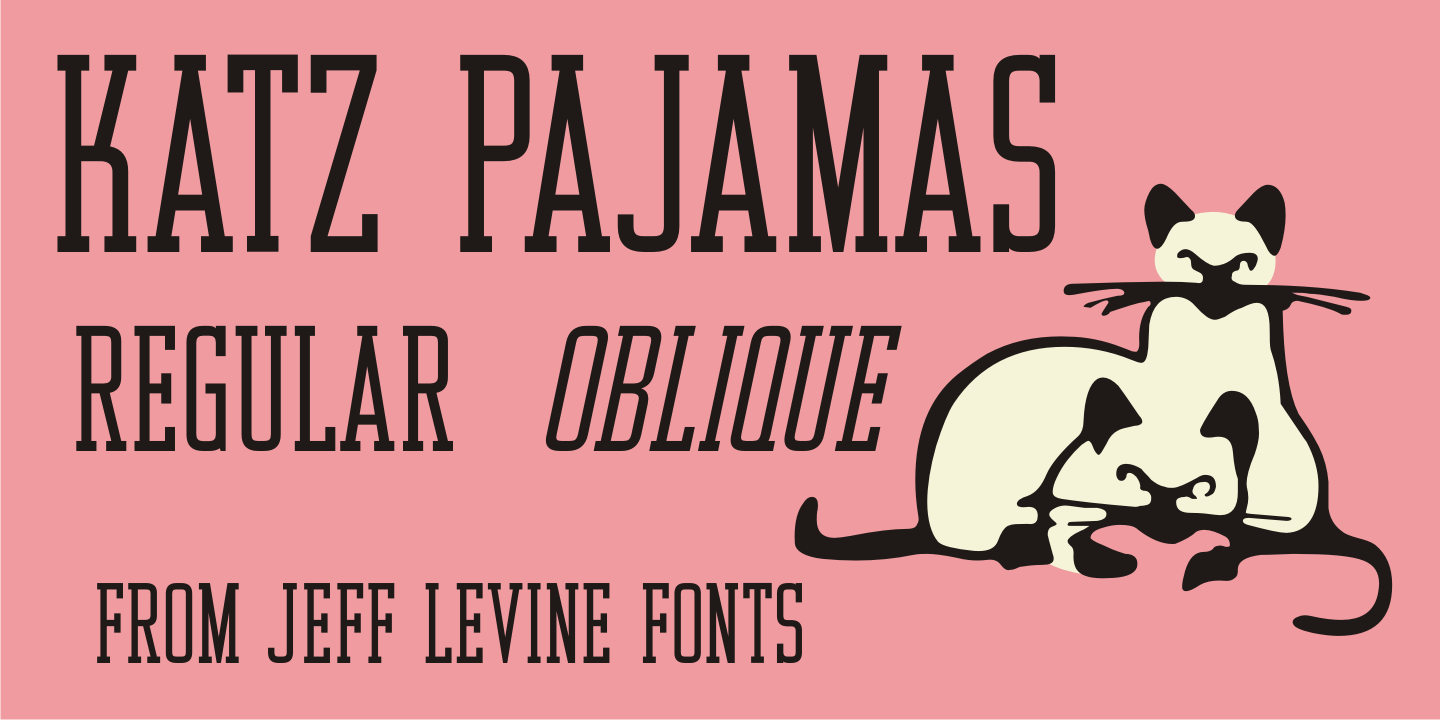
Katz Pajamas JNL Font is perfect for vintage nightclub posters, retro party invitations, jazz age branding, speakeasy signage, 1920s themed events, vintage theater marquees, cabaret show graphics, prohibition era designs, antique advertising reproductions, and Art Deco inspired projects.
Katz Pajamas JNL Font is exciting because it captures the sophisticated glamour and playful spirit of the Roaring Twenties with authentic period letterforms that evoke the golden age of jazz, flappers, and nightlife entertainment, perfect for projects celebrating vintage American culture and prohibition era style.
The Katz Pajamas JNL Font family includes regular weight with complete character sets, period-appropriate numerals, and vintage punctuation marks, maintaining authentic 1920s typography styling while ensuring modern functionality and excellent readability for contemporary applications.
When your design needs authentic Jazz Age personality, Katz Pajamas JNL Font Free Download delivers the perfect typographic solution for capturing vintage American entertainment culture. This distinctive typeface combines classic 1920s advertising aesthetics with contemporary design reliability, making it essential for event planners, entertainment venues, and brands seeking to establish sophistication through historical authenticity. The carefully crafted letterforms and period-correct styling make this font an excellent choice for any application where vintage glamour and prohibition era charm are crucial for creating memorable experiences and connecting with audiences who appreciate timeless American style.